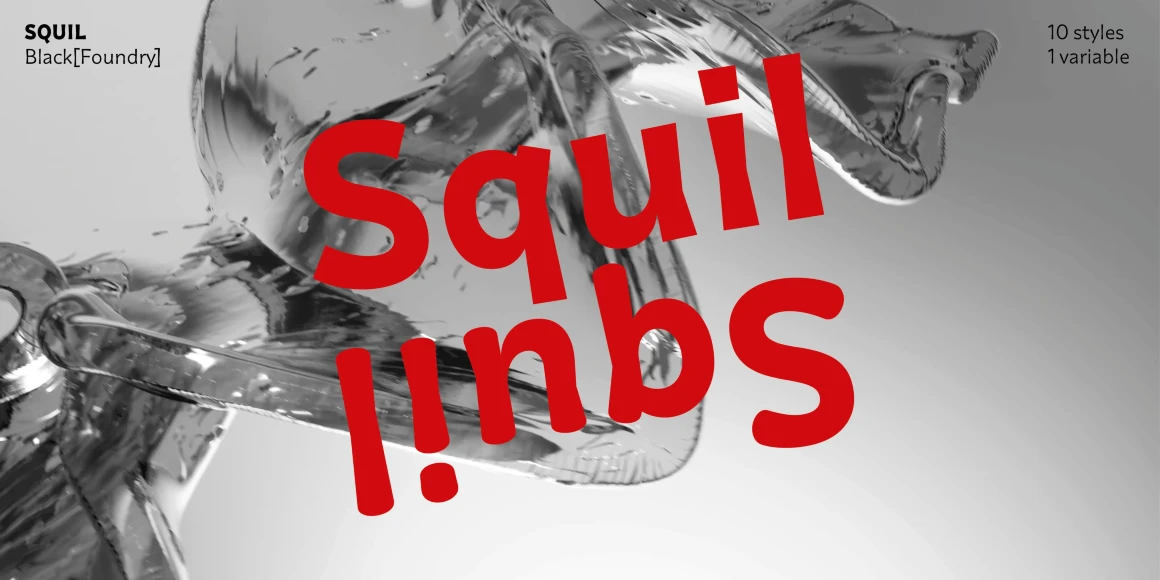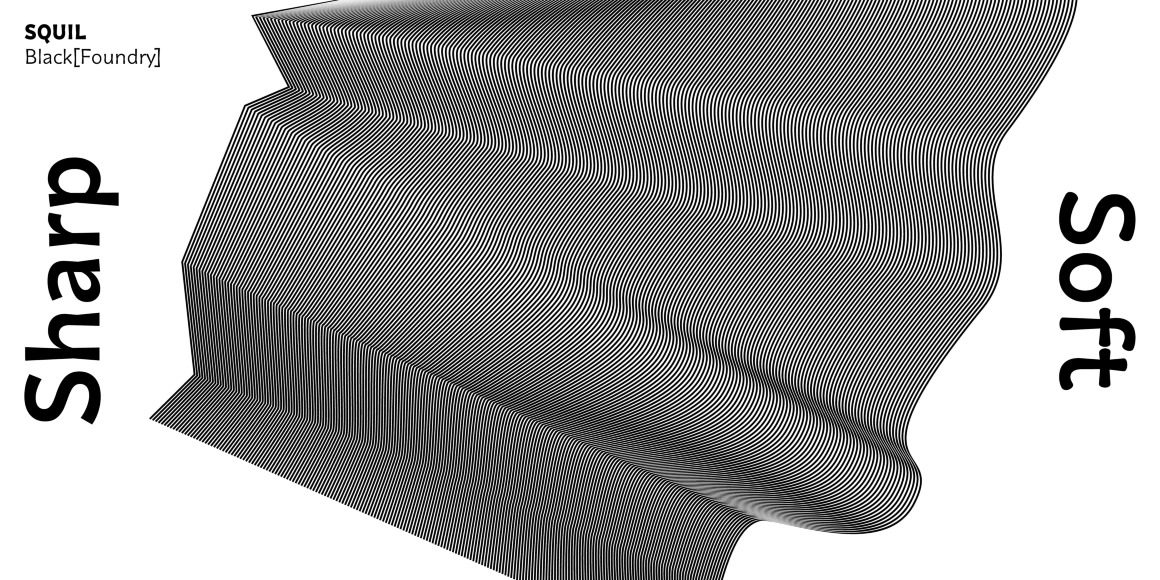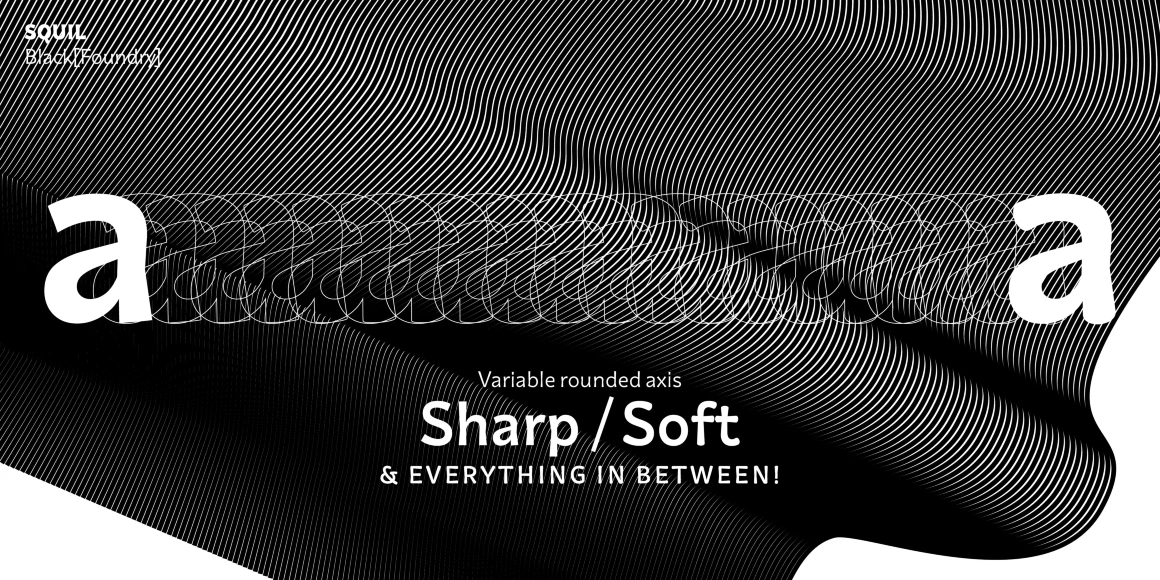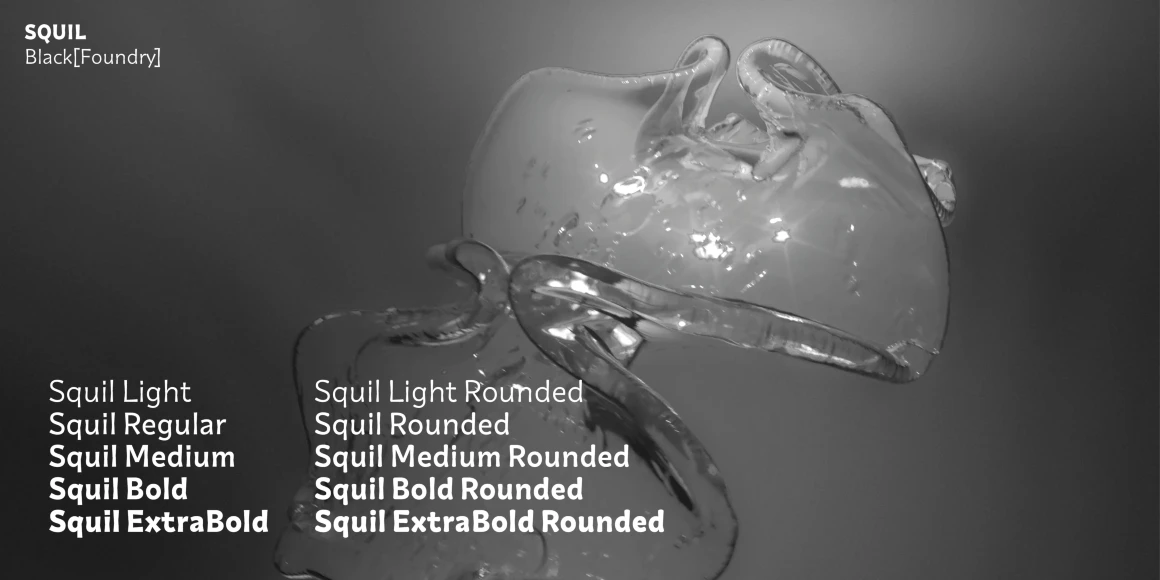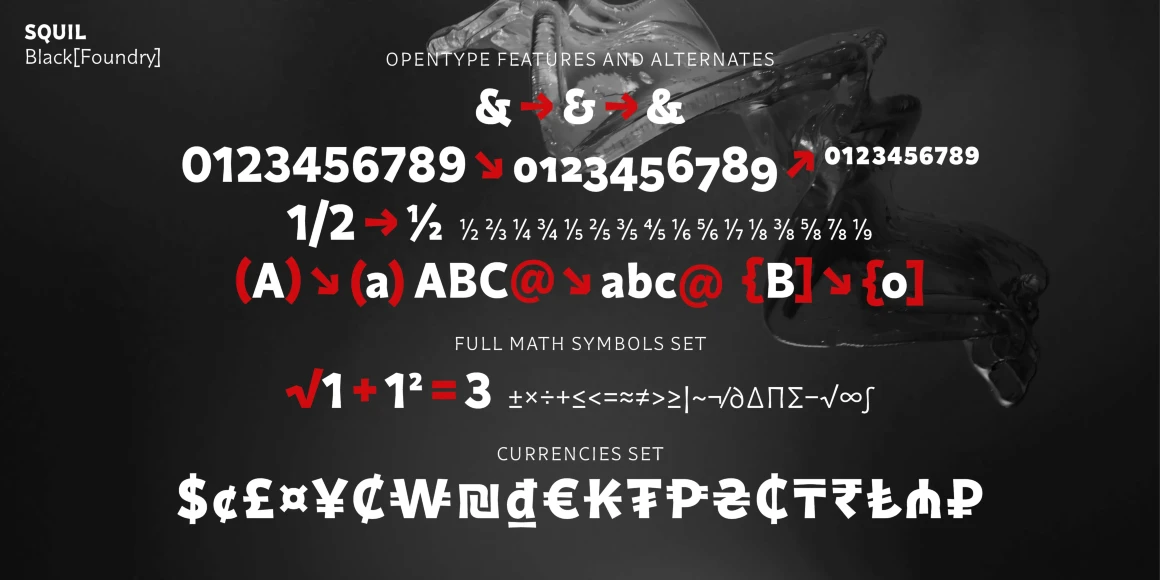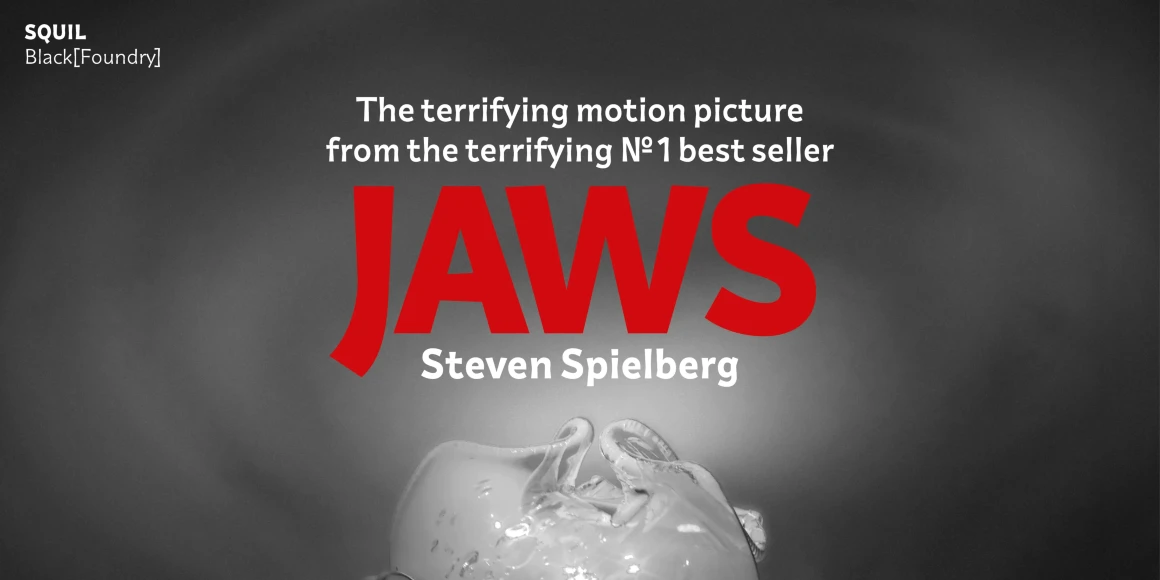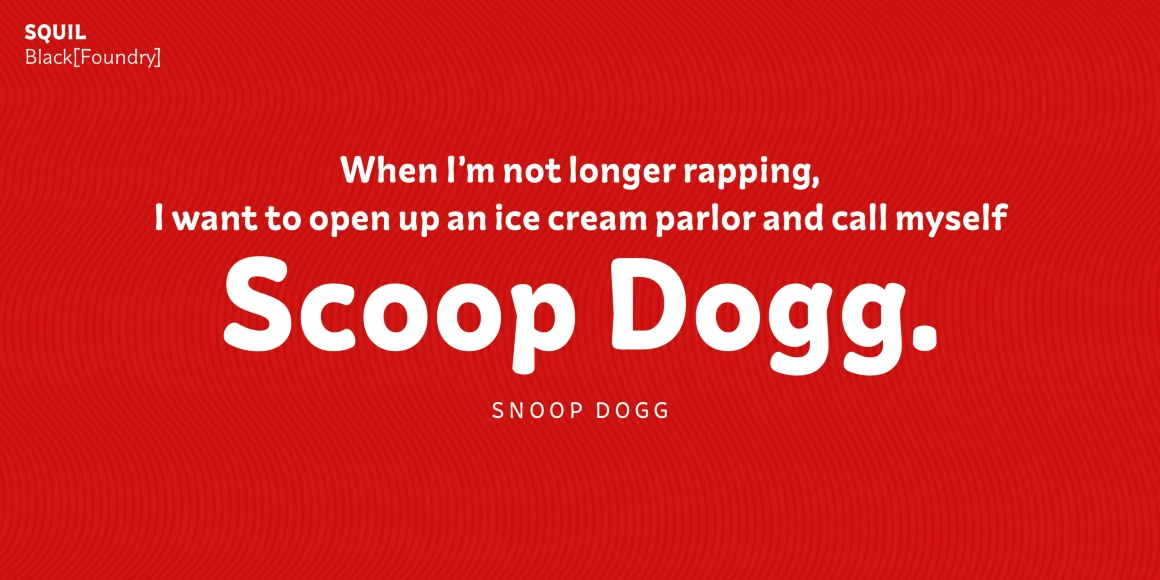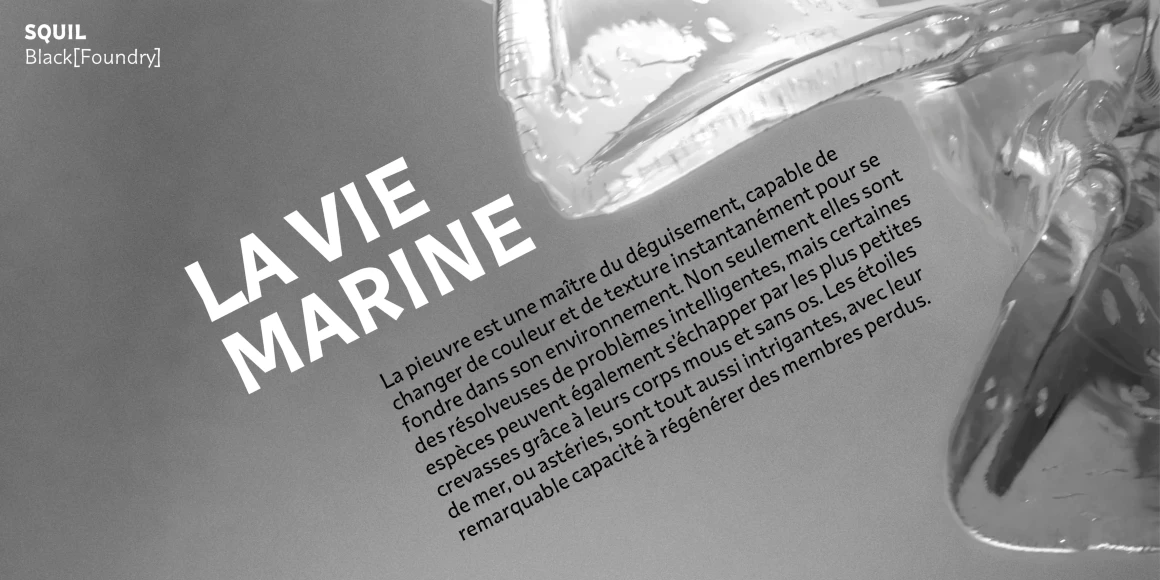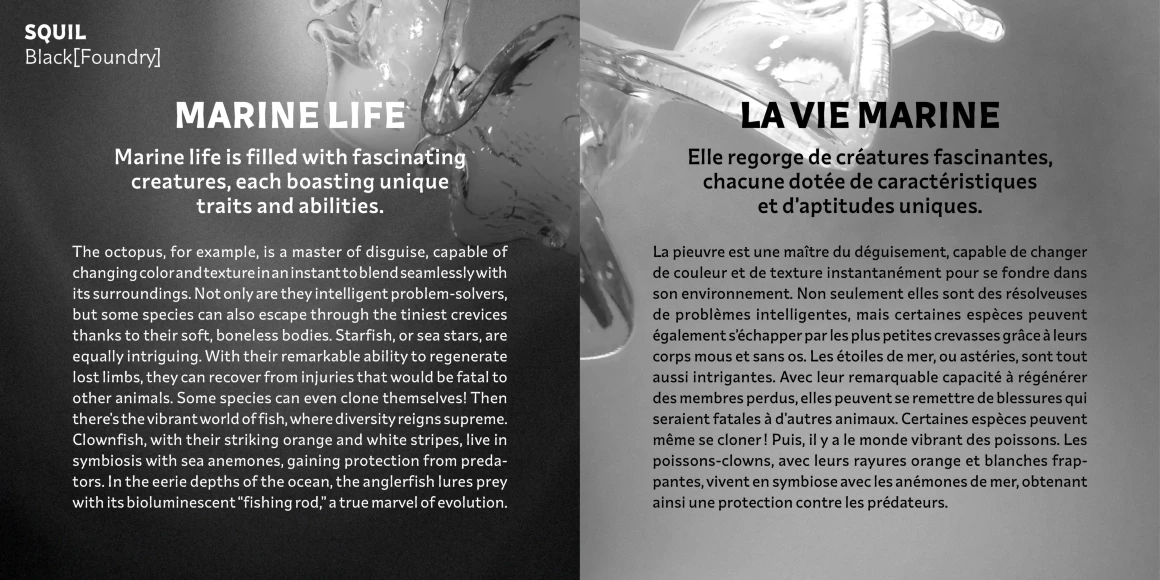
![Squil font by Black[Foundry] — the letters S, Q, U, I, L, exclamation mark, N, B, and S in red, sans-serif, and slightly oblique letters over a background of clear, rippling liquid.](https://typographer.io/1/assets/blk:squil/banner-1.webp:size(1160,580)?486f)
![Squil font by Black[Foundry] — the word “Sharp” rotated vertically on the left and “Soft” rotated vertically on the right, flanking a central abstract shape made of many thin, parallel, wavy lines.](https://typographer.io/1/assets/blk:squil/banner-2.webp:size(1160,580)?3fff)
![Squil font by Black[Foundry] — the letters S, Q, U, I, L, and Black[Foundry] in the upper left, two large sans serif lowercase A’s on either side of a wave pattern, and the words “Variable rounded axis Sharp / Soft & EVERYTHING IN BETWEEN!”](https://typographer.io/1/assets/blk:squil/banner-3.webp:size(1160,580)?85f6)
![Squil font by Black[Foundry] — the word “SQUIL” in a sans serif, with “Black[Foundry]” below it, and two lists of sans serif words, one with sharp terminals and one with rounded terminals, all overlaid on a black and white image of abstract glass forms](https://typographer.io/1/assets/blk:squil/banner-4.webp:size(1160,580)?e26e)
![Squil font by Black[Foundry] — the words “OPENTYPE FEATURES AND ALTERNATES” above examples of ampersands, numbers, fractions, and letters, with red arrows indicating alternate forms, and below, the words “FULL MATH SYMBOLS SET” and “CURRENCIES SET” above examples of math and currency symbols.](https://typographer.io/1/assets/blk:squil/banner-5.webp:size(1160,580)?342c)
![Squil font by Black[Foundry] — the words “The terrifying motion picture from the terrifying N°1 best seller” and “Steven Spielberg” in white sans serif, with “JAWS” in large red sans serif letters below, over a dark background with a translucent, organic shape at the bottom](https://typographer.io/1/assets/blk:squil/banner-6.webp:size(1160,580)?8c32)
![Squil font by Black[Foundry] — the quote “When I’m not longer rapping, I want to open up an ice cream parlor and call myself Scoop Dogg.” in white sans serif letters, with “Scoop Dogg.” in a larger, bolder weight, and “SNOOP DOGG” in small caps below.](https://typographer.io/1/assets/blk:squil/banner-7.webp:size(1160,580)?5ab0)
![Squil font by Black[Foundry] — the words “LA VIE MARINE” in large upright sans-serif letters, with a block of smaller sans-serif text below, all overlaid on a blurred image of water.](https://typographer.io/1/assets/blk:squil/banner-8.webp:size(1160,580)?a9ae)
![Squil font by Black[Foundry] — the words “MARINE LIFE” and “LA VIE MARINE” in upright sans serif letters, with two blocks of text below each.](https://typographer.io/1/assets/blk:squil/banner-9.webp:size(1160,580)?2d70)